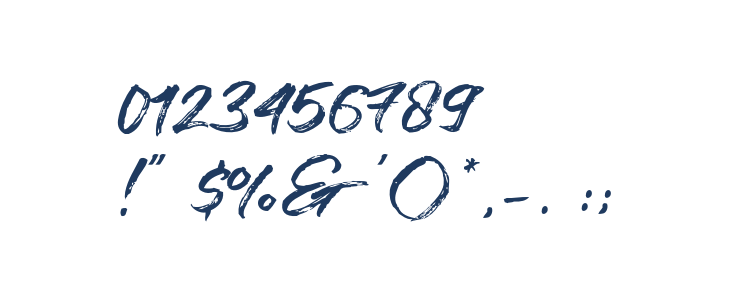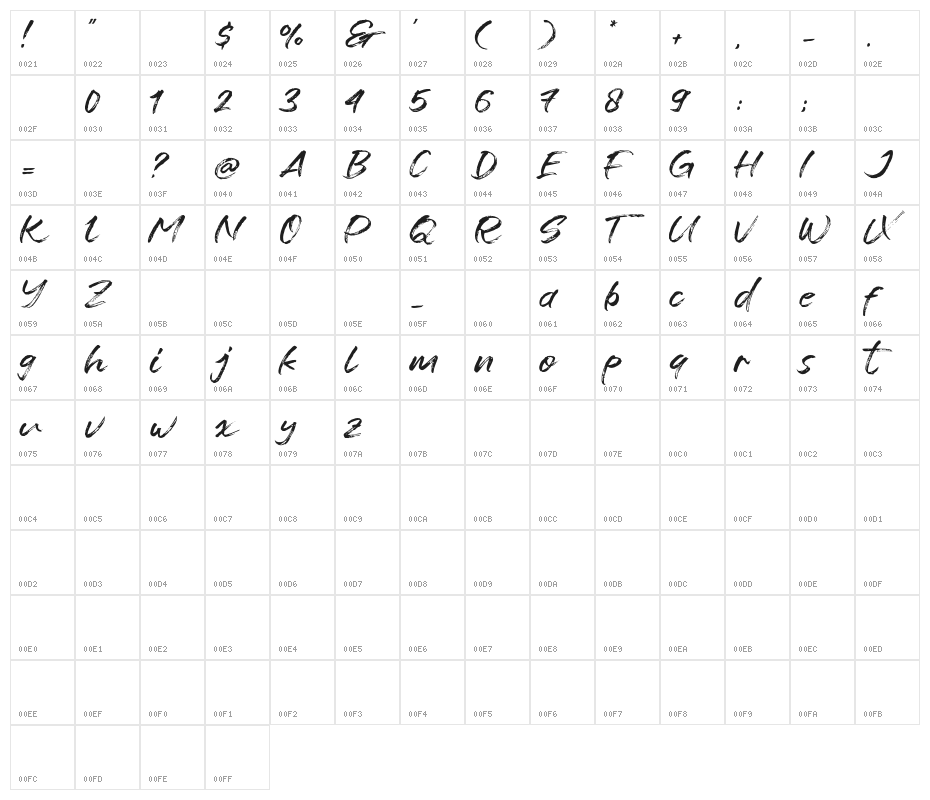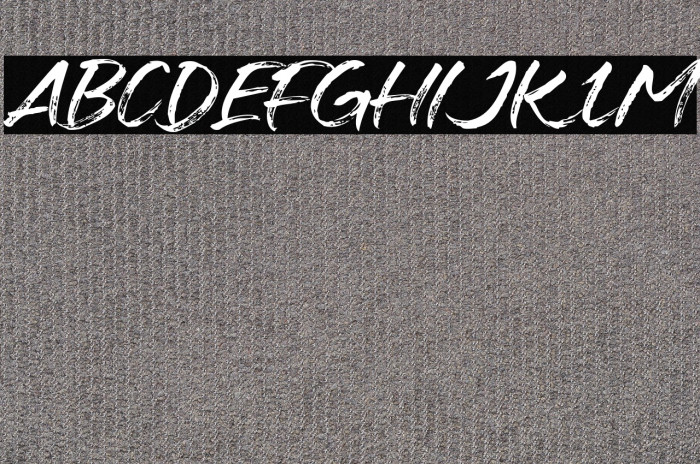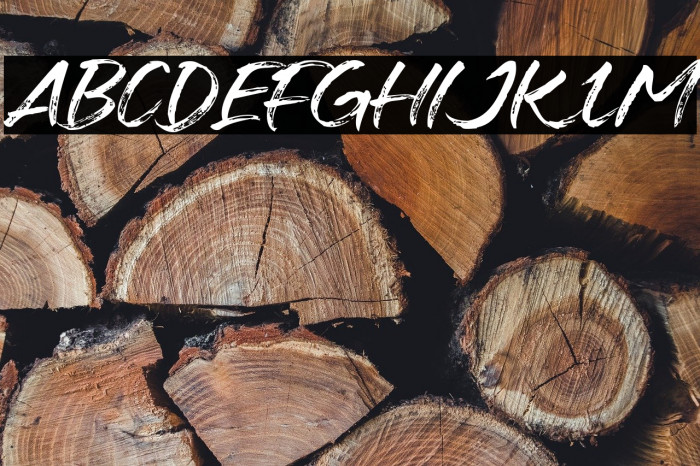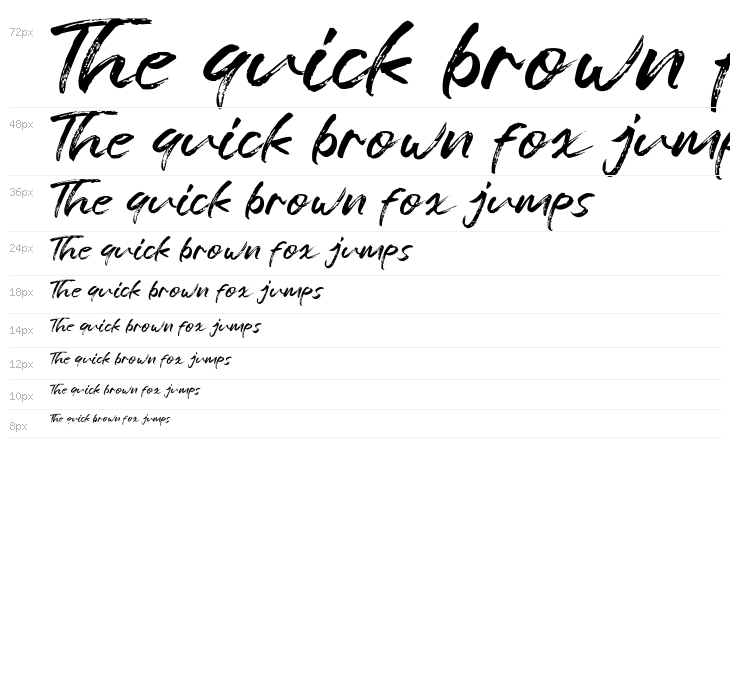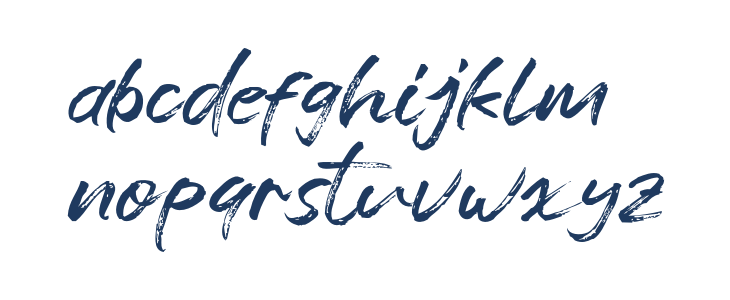
Fontrue Font
Fontrue Description
This font features a dynamic and expressive handwritten style, characterized by its bold and brush-like strokes. The letters exhibit a sense of movement and energy, with varying thickness that adds a textured and artistic feel. The uppercase and lowercase letters maintain a consistent style, while the numbers and special characters seamlessly integrate with the overall design. The font's rough edges and irregularities contribute to its authentic and organic appearance, making it ideal for creative and informal projects.
| Use Case | Logos, Headlines, Posters |
| Proposed Projects | Ideal for artistic projects, branding, posters, and invitations where a personal and energetic touch is desired. |